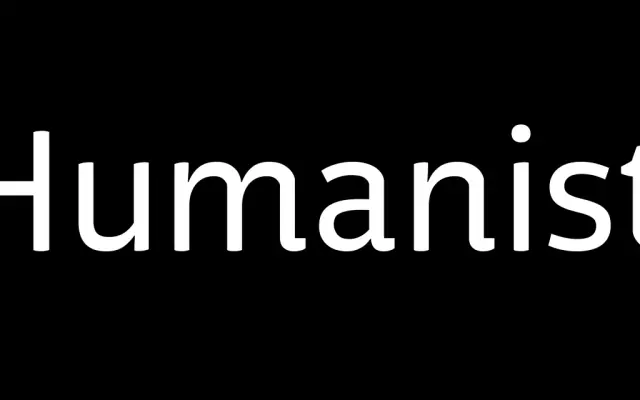
Respublika
A humanist sans serif family spanning five weights with matching italics and two variable fonts, suited to editorial and publishing work.
Respublika covers five weights from Light to Black, each with a matching italic, and ships with variable font versions included at no extra cost. The broad extended Latin character set with fractions, superscripts and a range of currency symbols makes it a practical choice for multilingual editorial and digital publishing. The humanist skeleton keeps text comfortable at small sizes while the weight range gives sufficient contrast for display use.
The foundry explicitly describes Respublika as a humanist sans serif; its broad Latin coverage, text-friendly proportions and organic stroke variation are consistent with the humanist sans tradition.